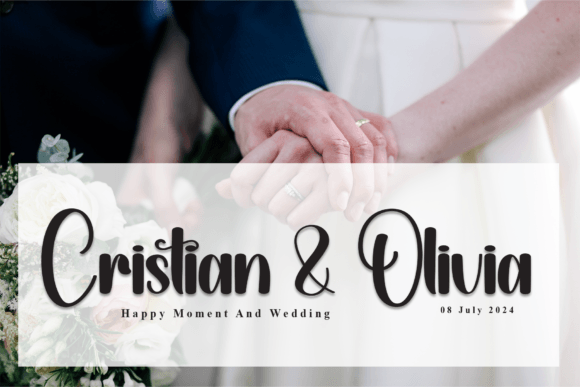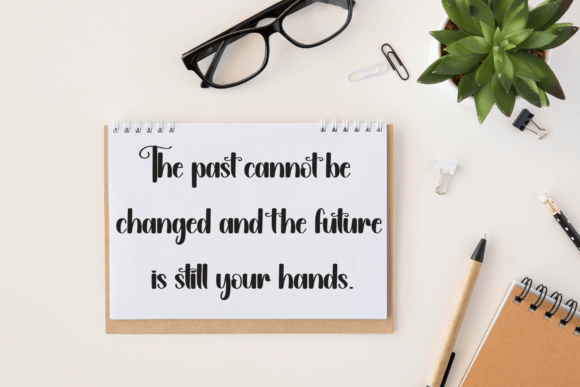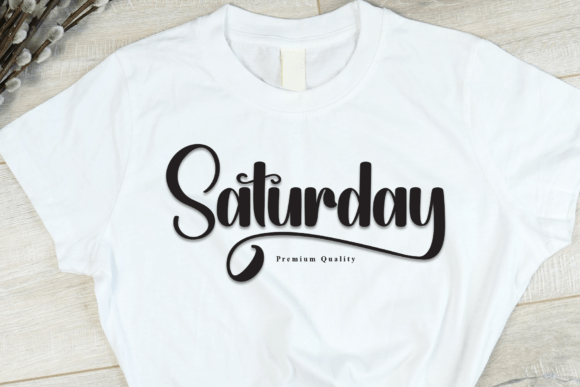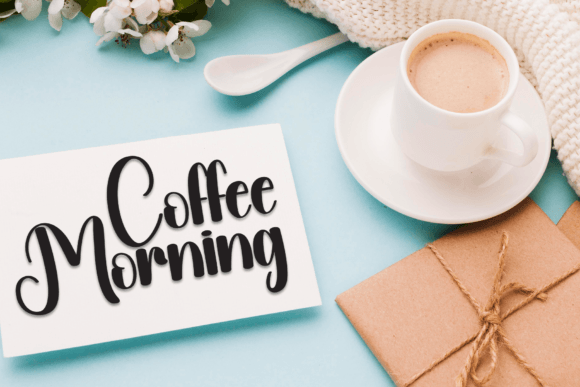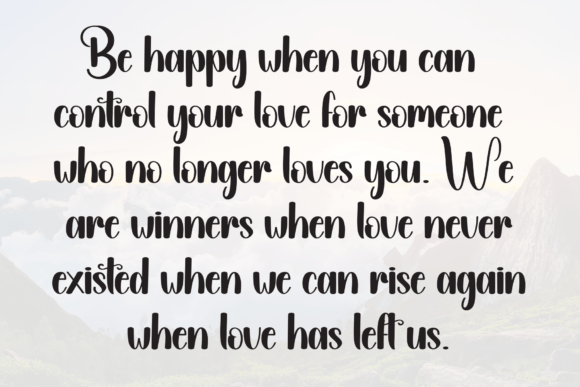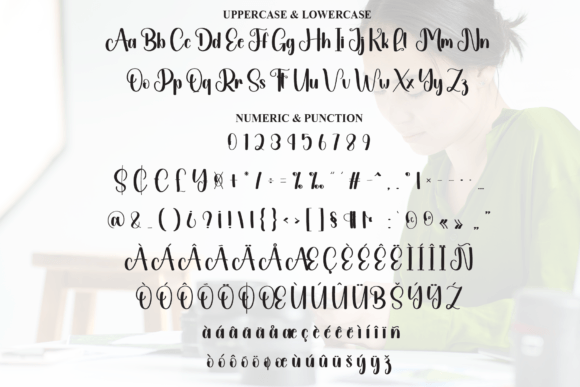
Introduction to Masterling Font
Have you ever stumbled upon a design that sparks inspiration and sets your creative juices flowing? For designers, finding that perfect font can be the game-changer that elevates their project from good to great. For many, the Masterling Font has been that elusive find – a stylish handwritten script font that exudes elegance and charm.
With its fluid strokes and natural flow, the Masterling Font creates a captivating, sophisticated look that’s perfect for adding a personal touch to invitations, branding, or social media. Whether you’re a seasoned designer or a creative enthusiast, this high-quality font is a valuable resource that can bring a sense of warmth and creativity to any design project.
Key Features of Masterling Font
- High-quality font suitable for creative projects and designs, providing a unique and elegant touch.
- Unique characteristics include a clean, modern design and a wide range of glyphs, making it a versatile design resource.
Honest Review: Masterling Font
As a designer, I’m always on the lookout for high-quality fonts to elevate my creative projects. I recently stumbled upon the Masterling Font, and I must say it’s been a pleasant surprise.
What works well: ✨ The Masterling Font has a clean and elegant design that makes it perfect for a variety of projects. Its versatility is impressive, and it’s easily adaptable to different contexts. I particularly appreciate the transparent background, which allows for seamless integration with other design elements. The free download option is also a major plus, making it an excellent design resource for designers of all levels.
- Wide range of applications: From posters to business cards, the Masterling Font is suitable for a wide range of creative projects.
- High-quality design: The font’s clean lines and elegant design make it a great choice for designers looking for a sophisticated look.
- Easy to use: The transparent background and simple design make it easy to incorporate into your projects.
Limitations: ⚠️ While the Masterling Font is an excellent addition to any designer’s arsenal, I do wish it had a bit more character. Some users may find it too simple or lacking in personality.
Overall impression: I’m thoroughly impressed with the Masterling Font. Its high-quality design, versatility, and free download option make it an excellent design resource. If you’re looking for a clean and elegant font for your next creative project, I highly recommend giving it a try.
For the best results, use Masterling Font in a design resource like a logo or a title. It’s perfect for creative projects that require a touch of sophistication and elegance. Use it to create stunning designs with a transparent background and high-quality font settings.